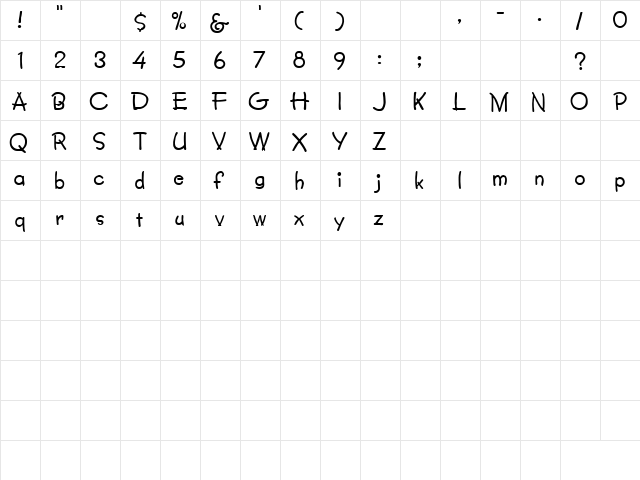
WHITEWASH Regular
Design Context for WHITEWASH Typeface
WHITEWASH offers clean, dependable letterforms without strong stylistic allegiance, making it a practical choice for designers who need flexibility.